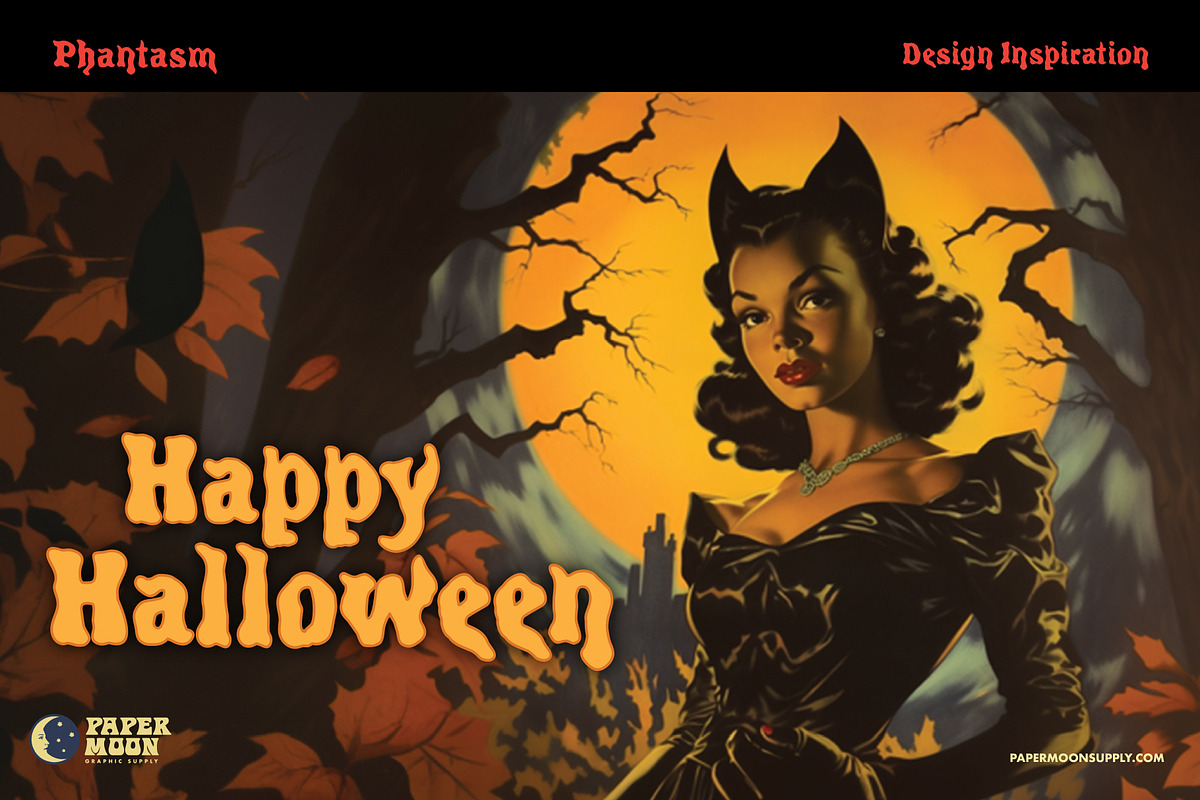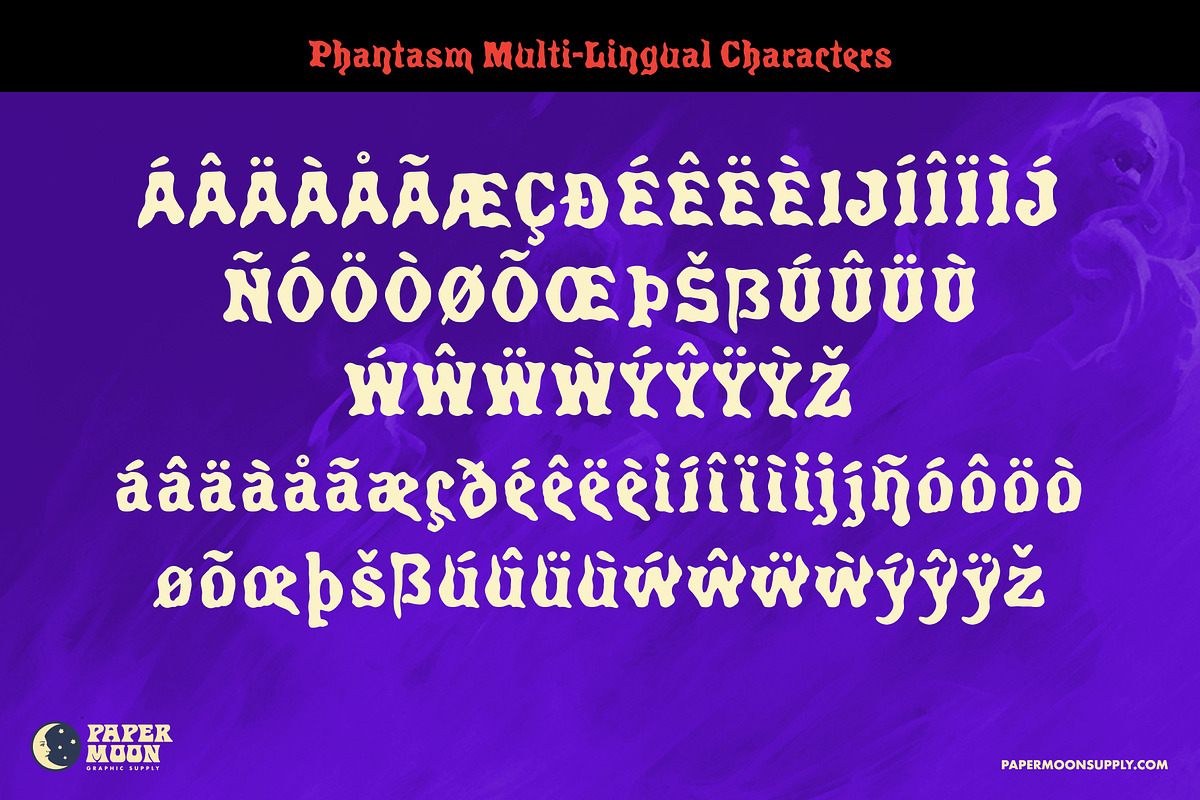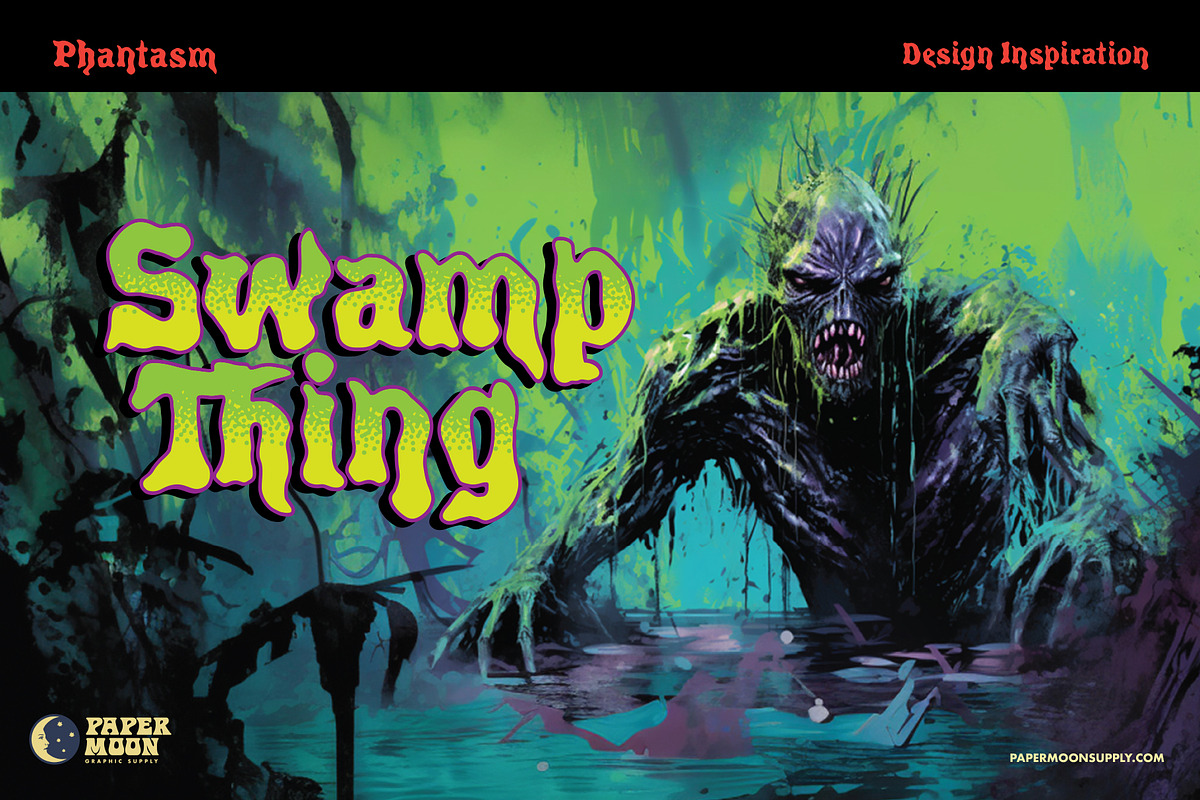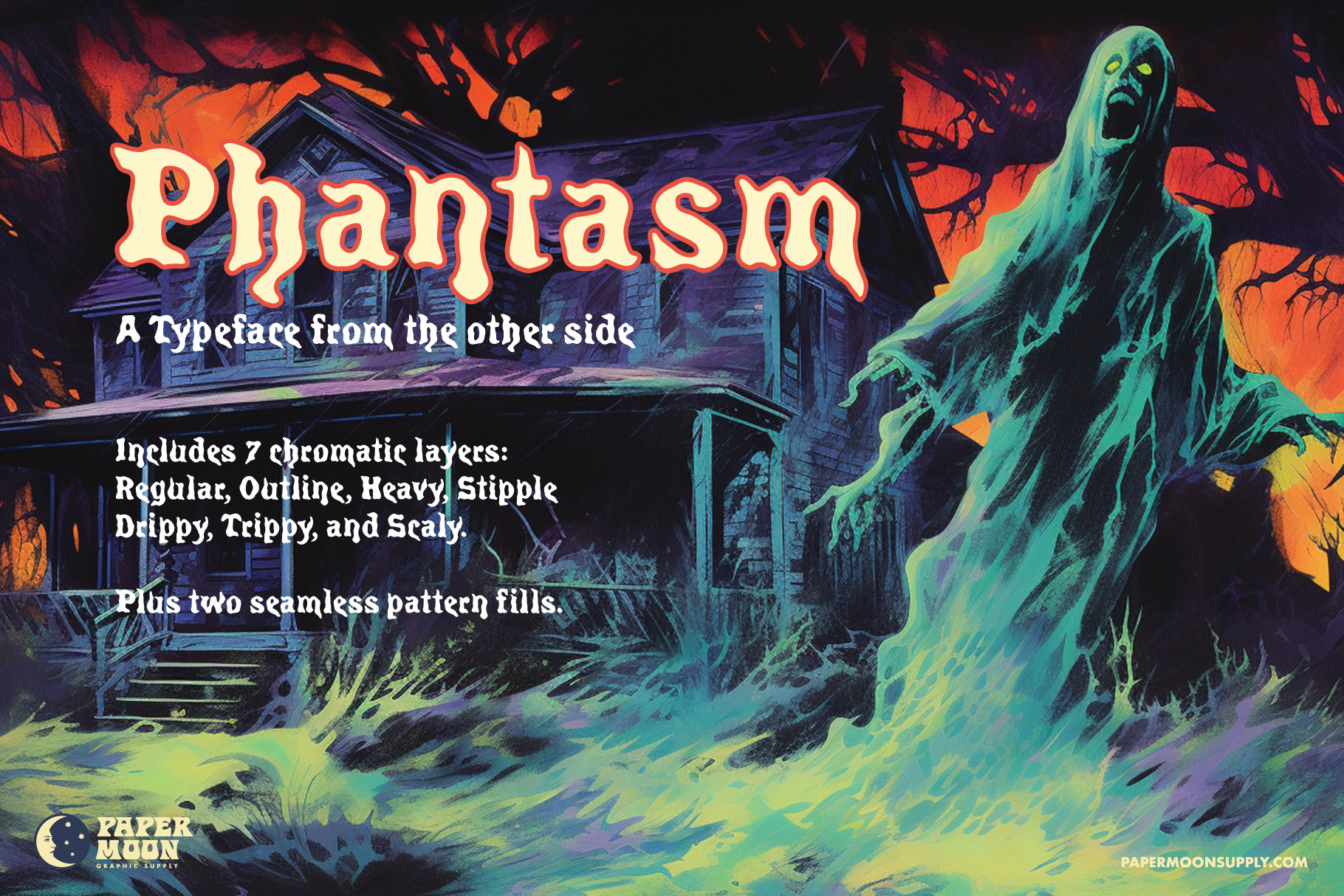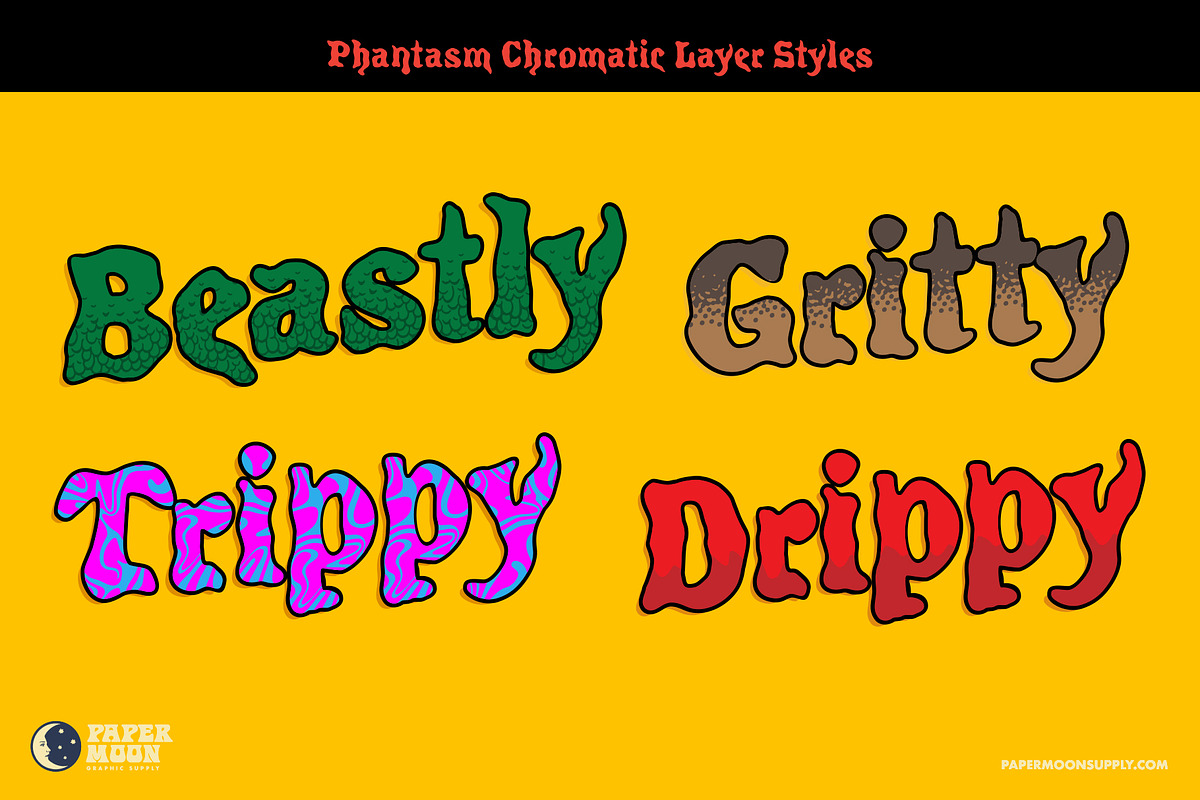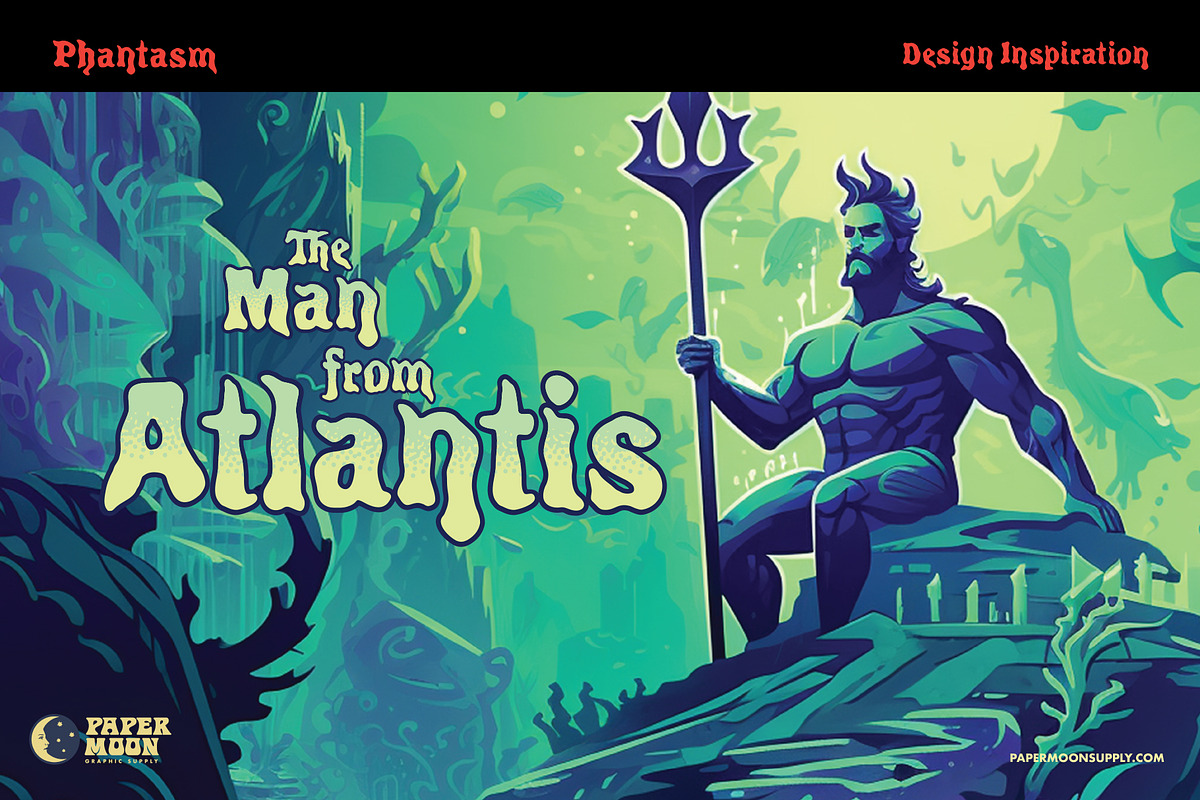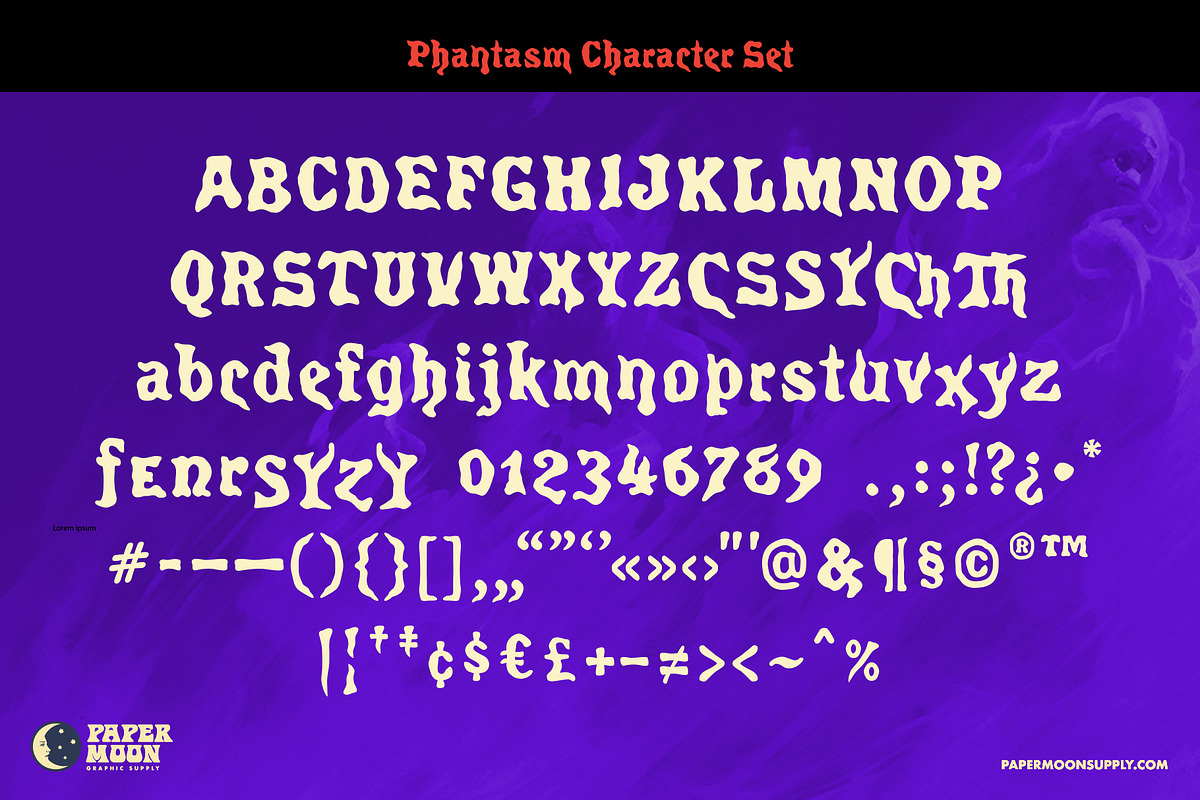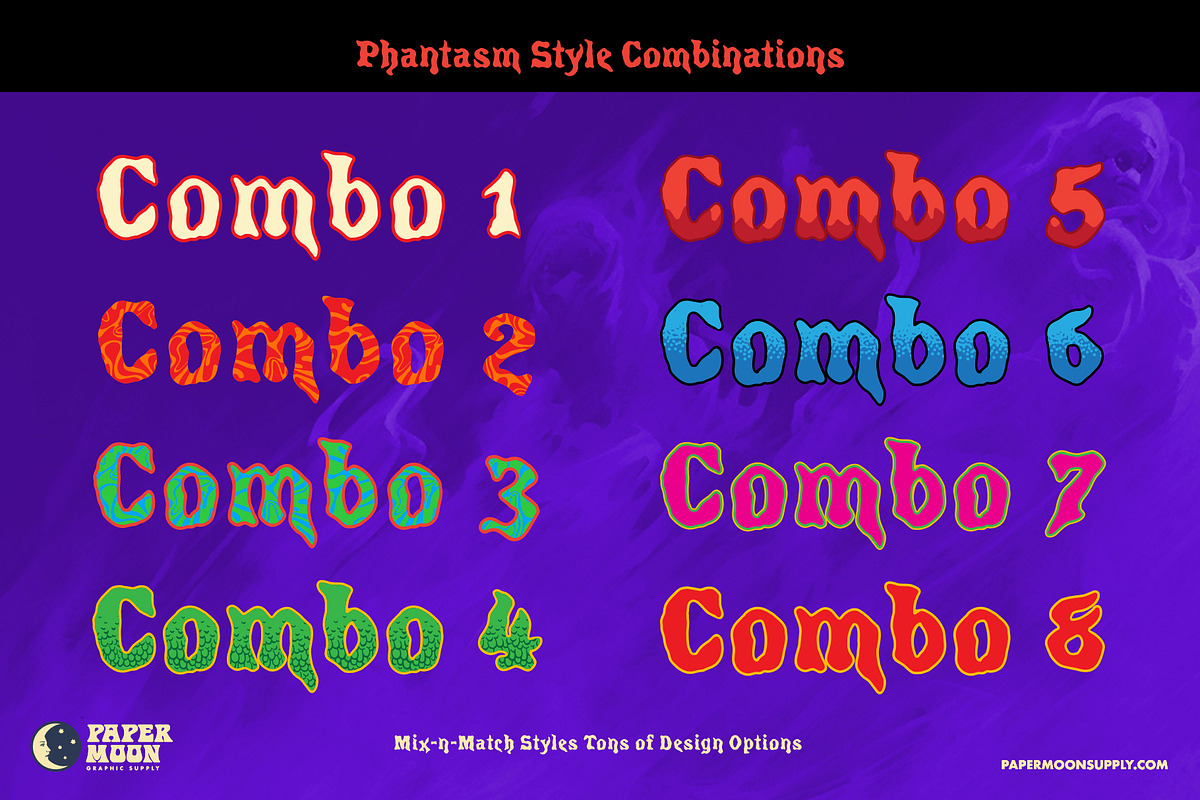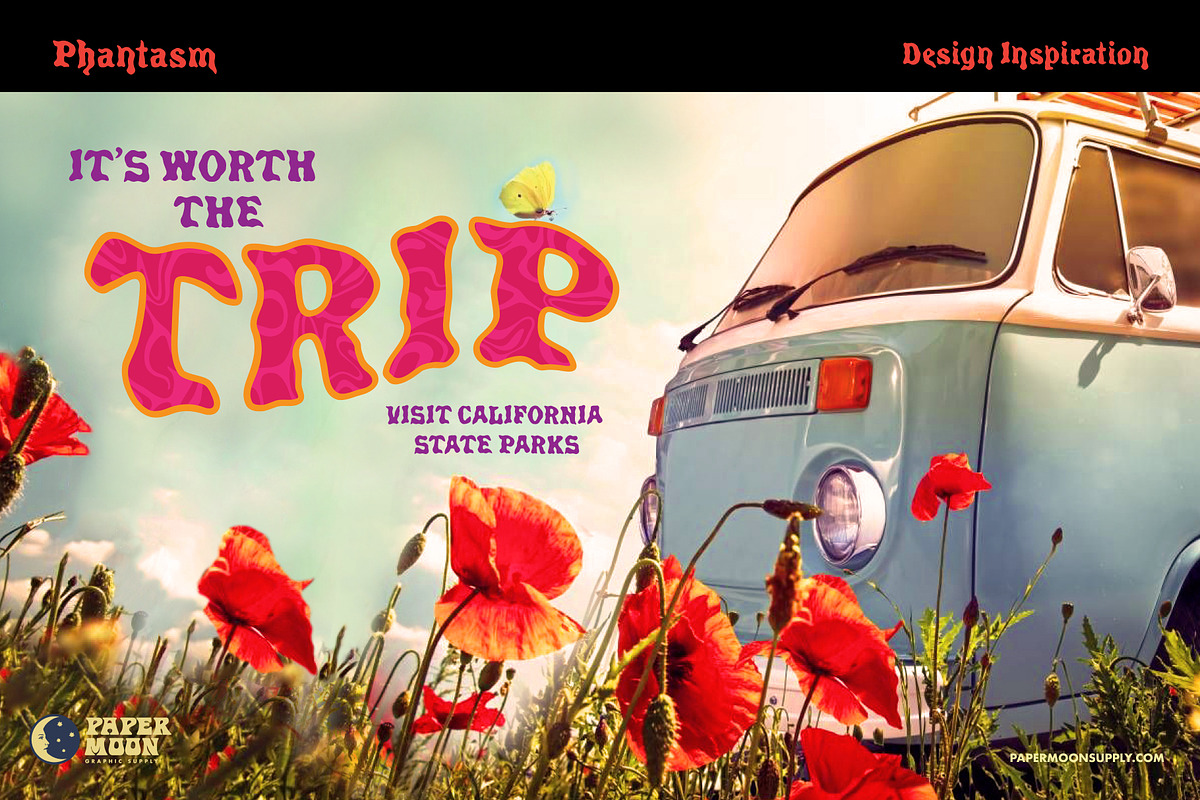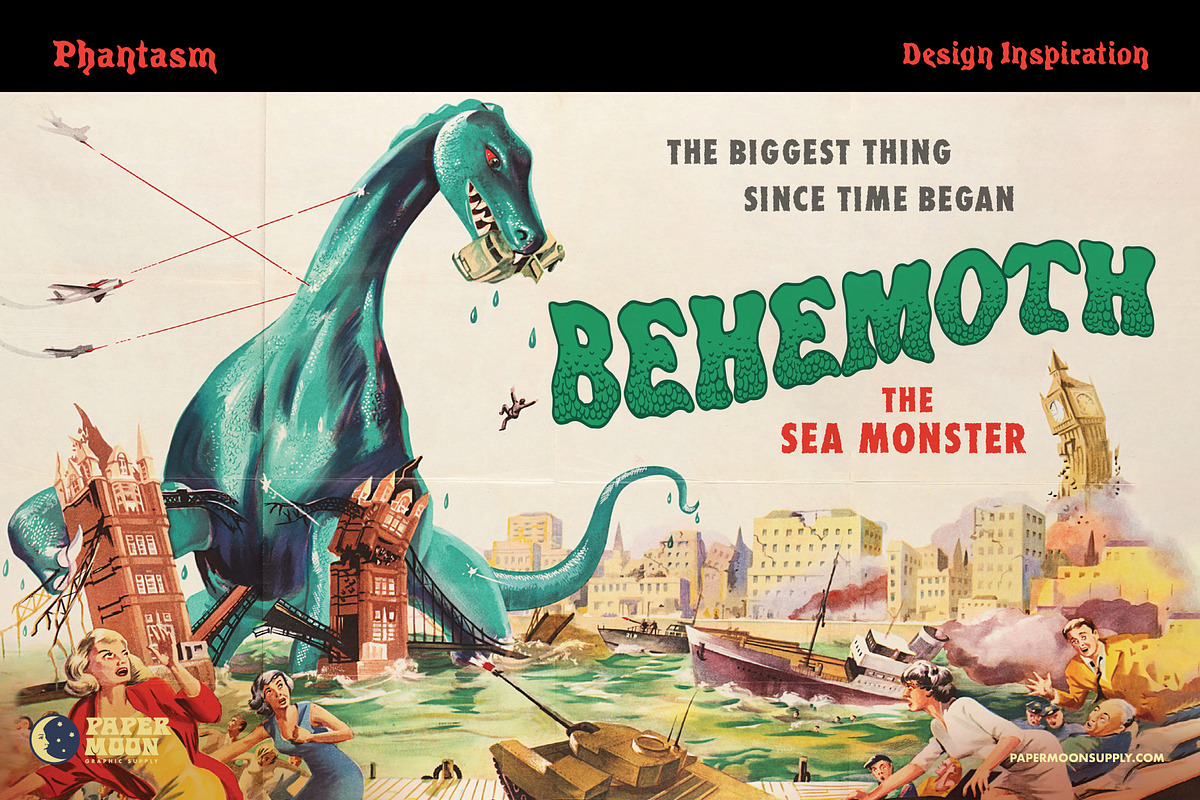
PM Phantasm Spooky Retro Font
A new fantasy font by Paper Moon Graphic Supply
Phantasm was inspired by a vintage hand-lettered Art Nouveau typeface that feels like a spooky, trippy, watery mashup.
However, Phantasm's creative potential is not limited to just Halloween designs and monster/fantasy-themed games. Its wavy shapes also give it an aquatic look and a psychedelic trippy feeling.
- Highly-detailed digital reproduction
- Complete alphabet, number, and punctuation sets
- Seven chromatic layers for tons of different looks
Phantasm was developed by award-winning illustrator, designer, and graphic prop maker Scott Banks.